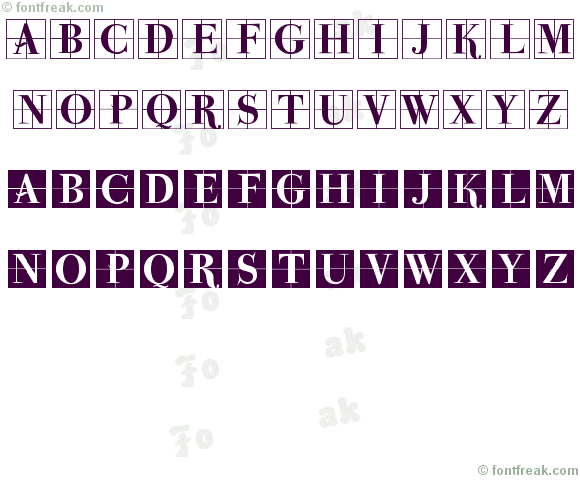
ParmaInitialenMK
About ParmaInitialenMK
ParmaInitialenMK by Manfred Klein is a distinctive serif font that captures attention with its unique visual characteristics. This typeface features a balanced stroke weight that combines elegance with readability, making it suitable for various design applications. The contrast in the letterforms adds a sophisticated touch, while the spacing is thoughtfully designed to ensure clarity and legibility. Decorative elements within the font give it a classic yet modern feel, making it a versatile option for both contemporary and traditional projects.
Ideal use cases for ParmaInitialenMK include wedding invitations, where its refined elegance can convey a sense of celebration and joy. It also works beautifully for movie posters, as its striking appearance can draw viewers in, setting the tone for the cinematic experience. Restaurant menus benefit from the font’s charm, as it enhances the overall dining experience by presenting dishes in an appealing manner. Additionally, content creators can utilize this font in digital graphics or branding projects, allowing their work to stand out in an increasingly crowded marketplace.
What sets the ParmaInitialenMK font apart is its ability to blend classic serif characteristics with a modern flair, making it an excellent choice for a variety of design needs. Whether you're crafting elegant invitations or eye-catching promotional materials, the ParmaInitialenMK font free download offers a stylish solution that enhances any project.